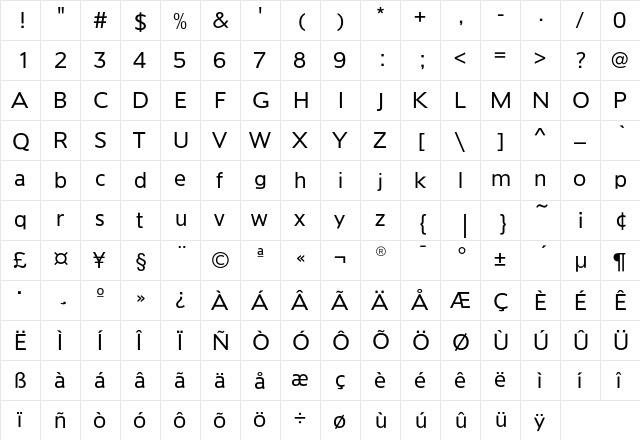
AngroEF-Light Regular Font Preview
AngroEF-Light Regular
Design Context for AngroEF-Light Typeface
AngroEF-Light takes a measured approach to typography — its balanced proportions and neutral character make it a reliable workhorse for both digital and print work. Its slender proportions lend an understated elegance to any composition.